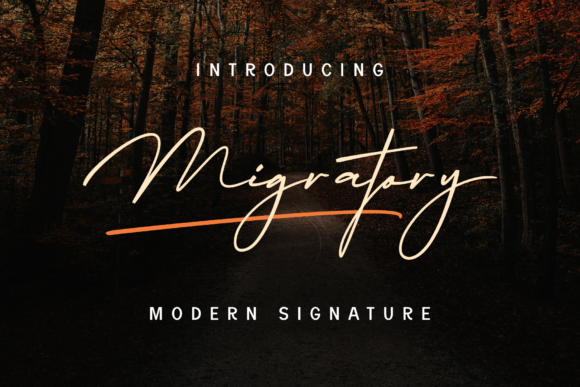
Introducing Migratory Font: The Epitome of Elegance and Authenticity in the World of Script Fonts
In the realm of typography, Migratory Font stands tall as a beacon of sophistication and originality, beckoning you to embark on a journey of creative expression like never before. This modern handwritten font, crafted with meticulous care by the renowned DUMADI, exudes a casual and carefree spirit that captivates the senses and breathes life into your designs.
Migratory Font is not just a collection of letters; it's an artistic masterpiece that embodies the essence of authenticity. Its meticulously crafted characters dance across the page with a fluidity and grace that mimics the beauty of natural handwriting. Each stroke, each curve, each subtle nuance is a testament to DUMADI's dedication to excellence, ensuring that Migratory Font stands out as a true gem in the world of typography.
Immerse yourself in the world of Migratory Font and discover a symphony of possibilities. Its casual and carefree style lends itself effortlessly to a wide range of design projects, from elegant company logos and event titles to captivating brand advertisements and premium products. Whether you're a seasoned designer or just starting your creative journey, Migratory Font is the perfect companion, guiding you towards design excellence with its intuitive charm and undeniable beauty.
As you embrace Migratory Font, you'll find yourself drawn into a vortex of creativity, where inspiration flows freely and ideas take shape with effortless ease. Its casual and carefree style sparks a sense of playfulness and experimentation, encouraging you to push the boundaries of your imagination and explore uncharted creative territories.
But Migratory Font is more than just a font; it's an experience. It's a journey into the realm of elegance and authenticity, where your designs come alive with a newfound vibrancy and sophistication. It's an invitation to embrace your creativity and let your imagination soar, knowing that Migratory Font will faithfully capture your vision and elevate it to new heights.